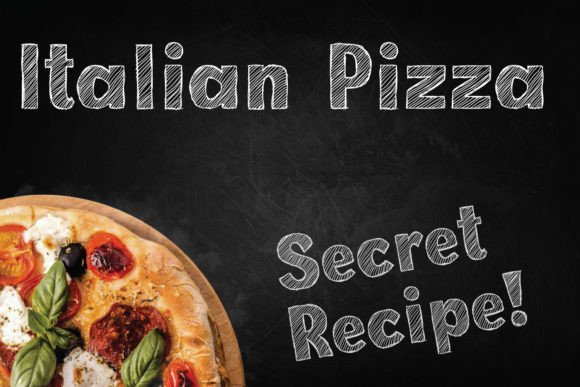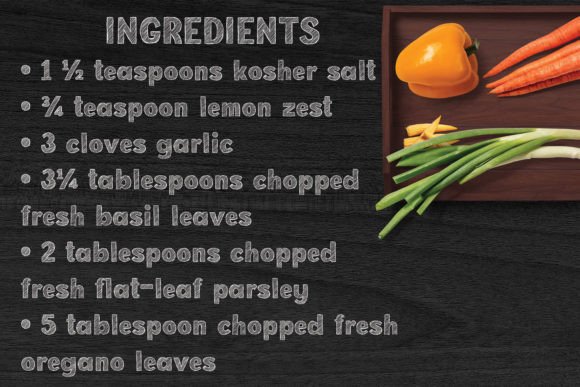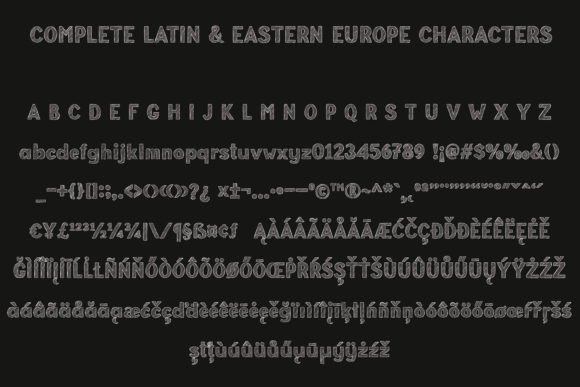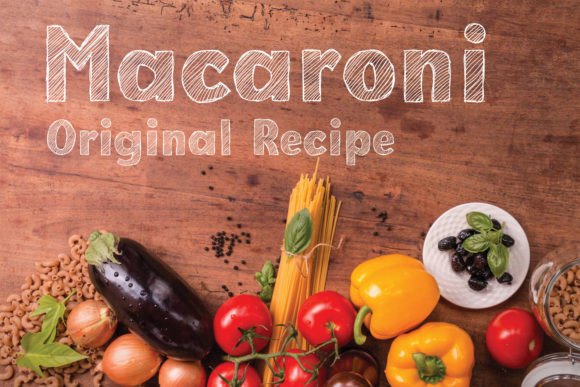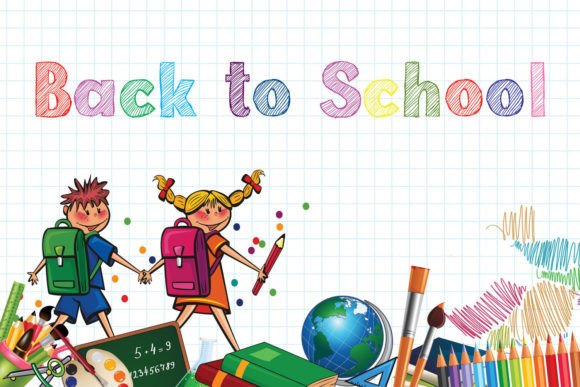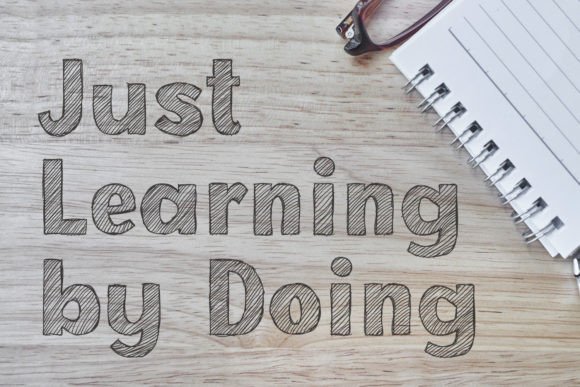
Introduction to Pusing Kali Font
Have you ever been stuck on a creative project, scrolling through endless design resources, searching for that perfect font to bring your idea to life? I’m sure you have. We’ve all been there, staring at a blank canvas, wondering what will make our design truly pop.
Well, wonder no more! Today, we’re excited to introduce the Pusing Kali Font, a stunning new handwritten display font that’s sure to elevate your designs to the next level. With its fun and entertaining vibe, this font is perfect for making a lasting impression on your audience, whether it’s for a book, magazine, flyer, or even a YouTube thumbnail title.
Pusing Kali Font
- Designed with a unique aesthetic, perfect for modern and minimalist designs
Honest Review: Pusing Kali Font
I recently came across the Pusing Kali Font and I must say, it’s a great addition to any design resource library. As a designer, I’m always on the lookout for unique and high-quality fonts that can elevate my creative projects.
- ✨ High-quality design with clean lines and unique character shapes
However, there are a few limitations to consider. The font may not be suitable for use in certain professional settings, such as in formal business documents or academic papers. Additionally, some users may find the font’s uniqueness to be a bit too quirky for their taste.
Overall, I would recommend the Pusing Kali Font to designers who are looking for a unique and high-quality design resource. While it may not be perfect for every project, it’s definitely worth adding to your library of design resources.
Pusing Kali Font
Pusing Kali Font is commonly used in:
- Graphic design projects, such as brochures and flyers.
- Branding and marketing materials, such as logos and business cards.
- Digital art and creative projects, such as illustrations and animations.